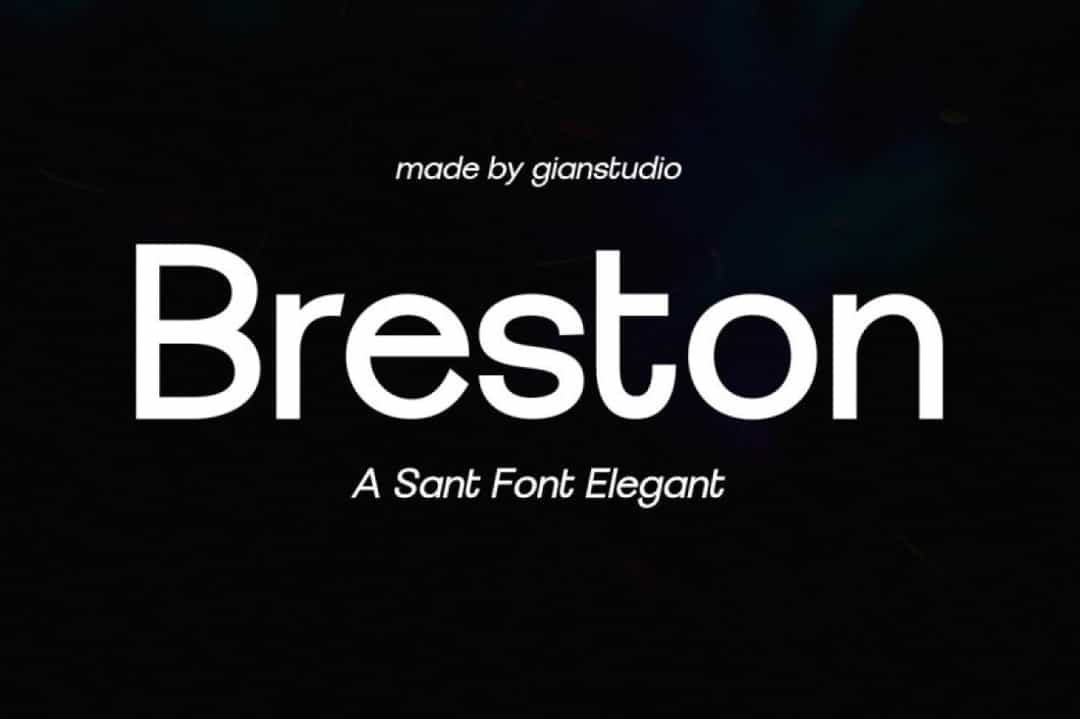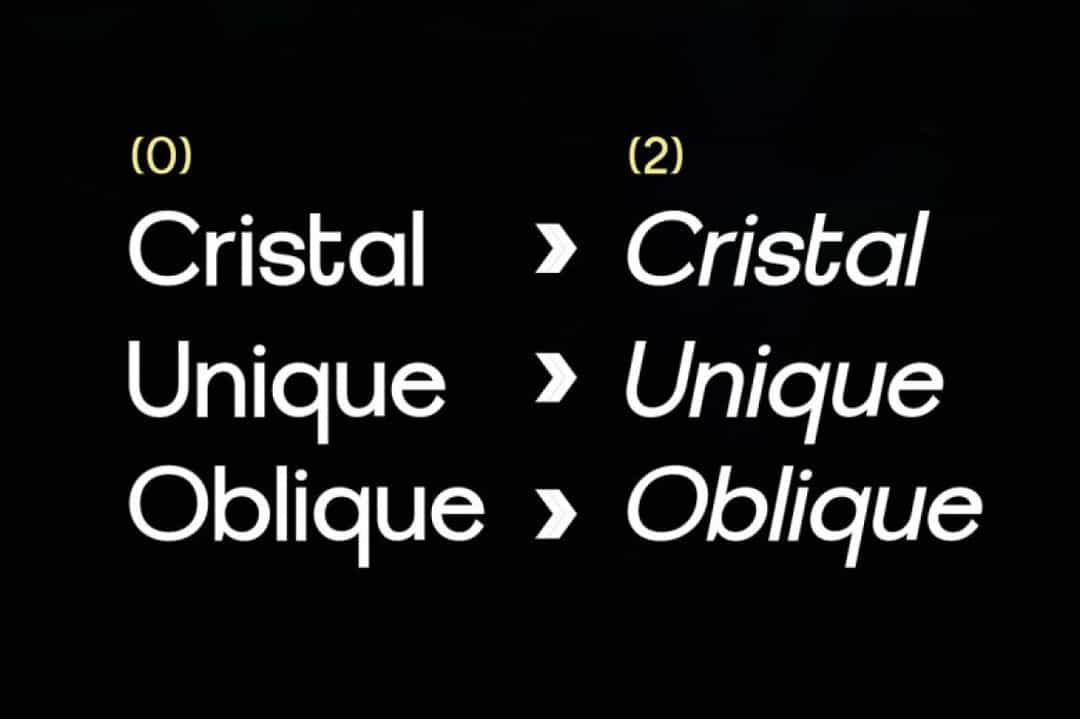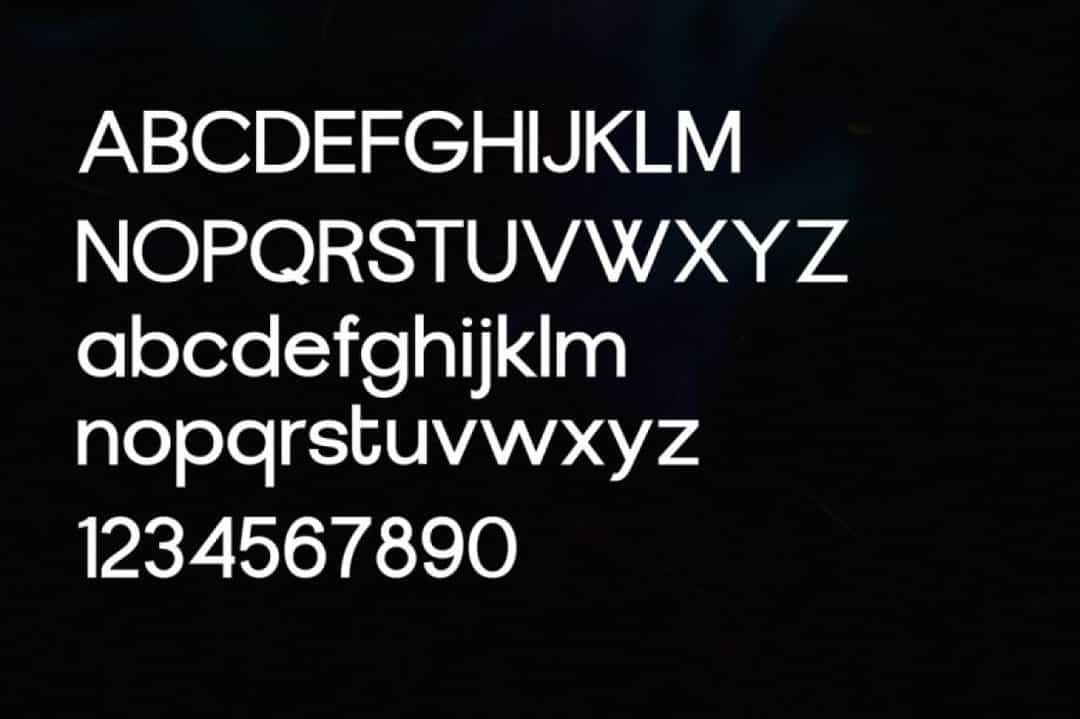
Breston is an elegant sans-serif font inspired by one of the top fashion brands worldwide, designed and carefully constructed. Typically creating an opulent and sophisticated feel. Make use of it when it comes to fashion-related brands, resorts and invitations as it adds sophistication. Useful too for cosmetics weddings branding packaging magazines boutiques restaurants social media spa greeting cards headlines headers etc.